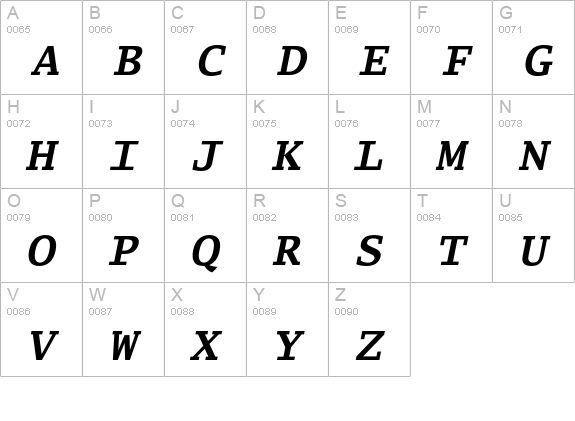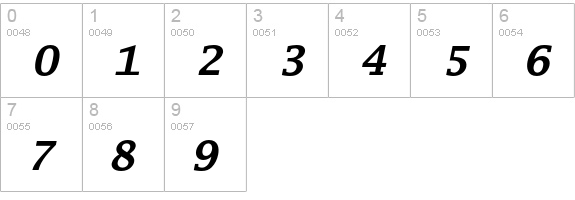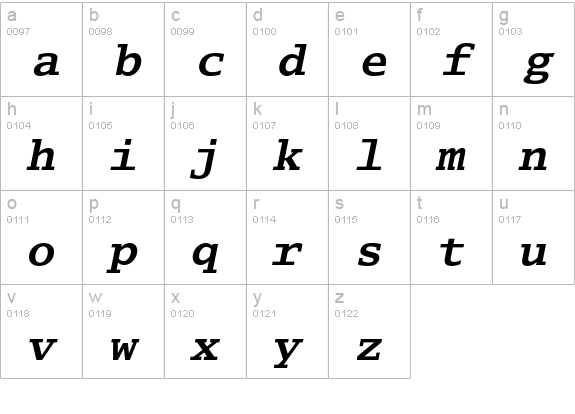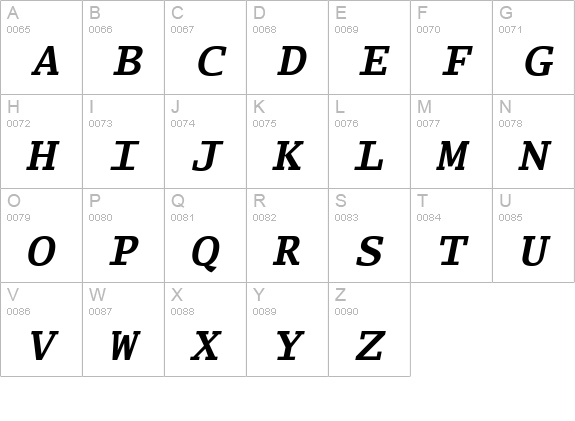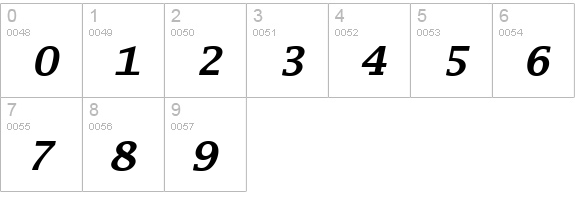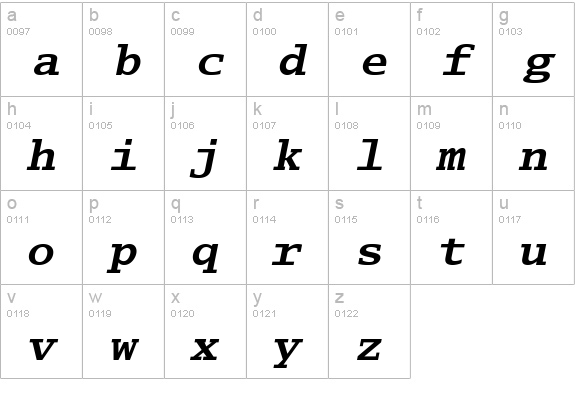
Lucida Typewriter Bold Oblique Font Details
Lucida Typewriter Bold Oblique is a strong, high-contrast, italic variant in the Lucida typeface family \xE2\x80\x94 well suited to headlines, attention-grabbing titles, and strong calls-to-action.
Lucida Typewriter Bold Oblique is a versatile and stylish font that exudes a sense of sophistication and professionalism. Its bold and slanted design brings a modern twist to the classic typewriter style, making it perfect for a wide range of design projects. Whether you are creating documents, posters, or digital content, this font will make your text stand out with its unique and distinctive look. The best part is that Lucida Typewriter Bold Oblique is available for free download at FontsMarket.com. Now you can enhance your designs with this elegant and eye-catching font without any cost. Don't miss out on this opportunity to add a touch of class to your projects with the Lucida Typewriter Bold Oblique font. Download it today and elevate your design game to the next level.